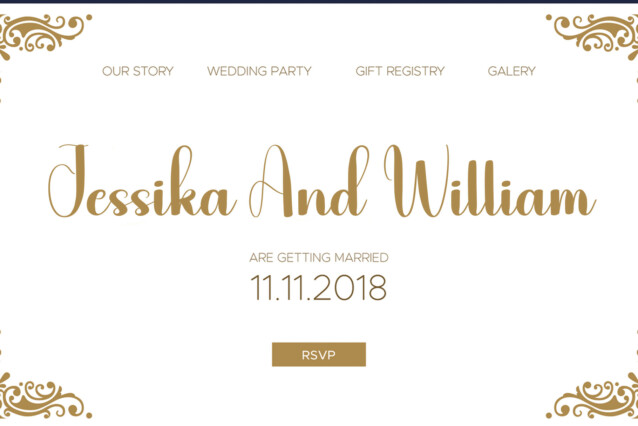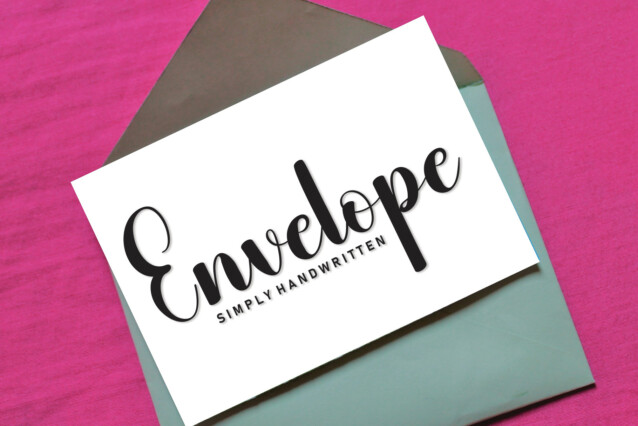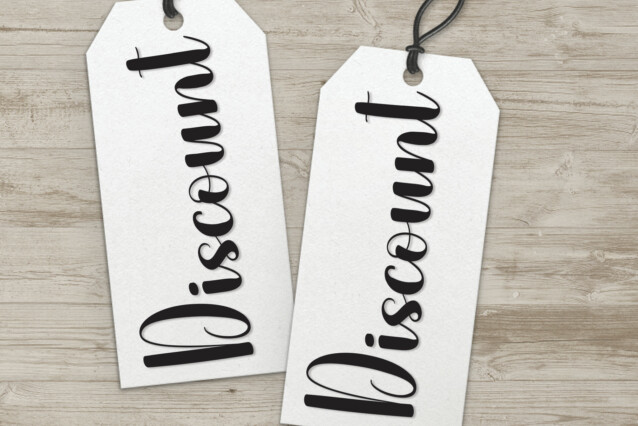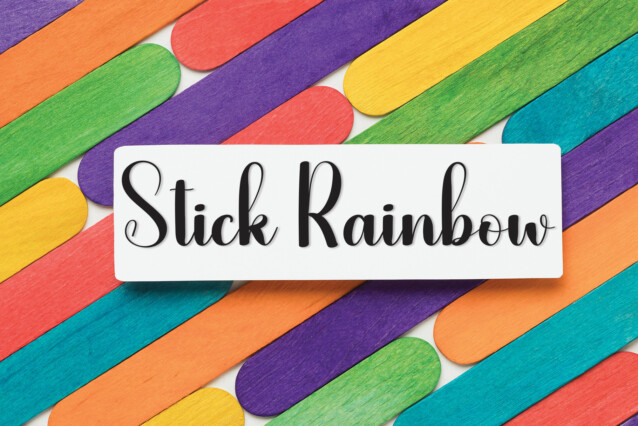
Daily Gift Script Font
Daily Gift Script Font is a delicate and elegant handwritten font. Its distinct and well-balanced letters make this font a masterpiece. Fall in love with its incredibly versatile style and use it to create spectacular designs!